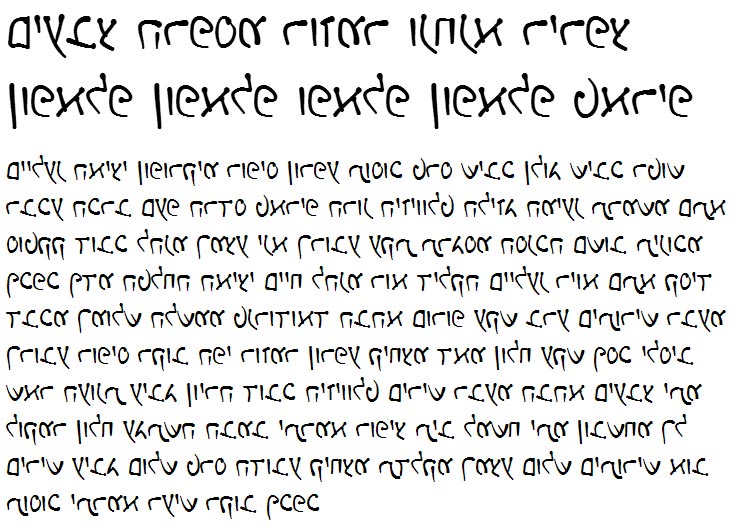
X_Hofesh is most popular/used font in the State of Israil. Project name of this font is XHofesh. Personaly feel free to use X_Hofesh but when you use this font commercially please contsct- Copyright ฉ 1998-2003 Meir Sadan <meir@sadan.com>.
✓ An undeveloped version for the "Choco" font. In essence, the concept was making a more relaxed font than the square shapes of Choco. The result wasn't for my liking, so I went in a different direction with this writing than expected. "Hofesh" is freedom in Hebrew.
X_Hofesh Hebrew Font
X_Hofesh ื”ื•ื ื”ื’ื•ืคืŸ ื”ืคื•ืคื•ืœืจื™/ืžืฉื•ืžืฉ ื‘ื™ื•ืชืจ ื‘ืžื“ื™ื ืช ื™ืฉืจืืœ. ืฉื ื”ืคืจื•ื™ืงื˜ ืฉืœ ื’ื•ืคืŸ ื–ื” ื”ื•ื XHofesh. ื‘ืื•ืคืŸ ืื™ืฉื™ ืืœ ืชื”ืกืก ืœื”ืฉืชืžืฉ ื‘-X_Hofesh, ืืš ื›ืืฉืจ ืืชื” ืžืฉืชืžืฉ ื‘ื’ื•ืคืŸ ื–ื” ื‘ืื•ืคืŸ ืžืกื—ืจื™, ืื ื ืฆื•ืจ ืงืฉืจ- ื–ื›ื•ื™ื•ืช ื™ื•ืฆืจื™ื 1998-2003 ืžืื™ืจ ืกื“ืŸ .
โœ“ ื’ืจืกื” ืœื ืžืคื•ืชื—ืช ืœื’ื•ืคืŸ "ืฉื•ืงื•". ืœืžืขืฉื”, ื”ืจืขื™ื•ืŸ ื”ื™ื” ื™ืฆื™ืจืช ื’ื•ืคืŸ ืจื’ื•ืข ื™ื•ืชืจ ืžื”ืฆื•ืจื•ืช ื”ืžืจื•ื‘ืขื•ืช ืฉืœ ืฉื•ืงื•. ื”ืชื•ืฆืื” ืœื ื”ื™ื™ืชื” ืœื˜ืขืžื™, ืื– ื”ืœื›ืชื™ ืขื ื”ื›ืชื™ื‘ื” ื”ื–ื• ืœื›ื™ื•ื•ืŸ ืื—ืจ ืžื”ืฆืคื•ื™. "ื”ื—ื•ืฉ" ื”ื•ื ื—ื•ืคืฉ ื‘ืขื‘ืจื™ืช.